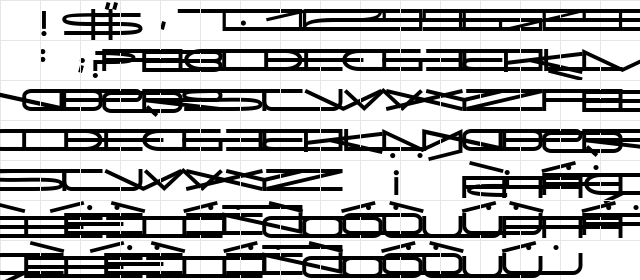
JMH Extra Wide Ultra-expanded Regular
| Style | Ultra-expanded Regular |
Design Context for JMH Extra Wide Typeface
JMH Extra Wide is a composed and adaptable typeface that performs quietly and consistently across a wide range of design contexts.